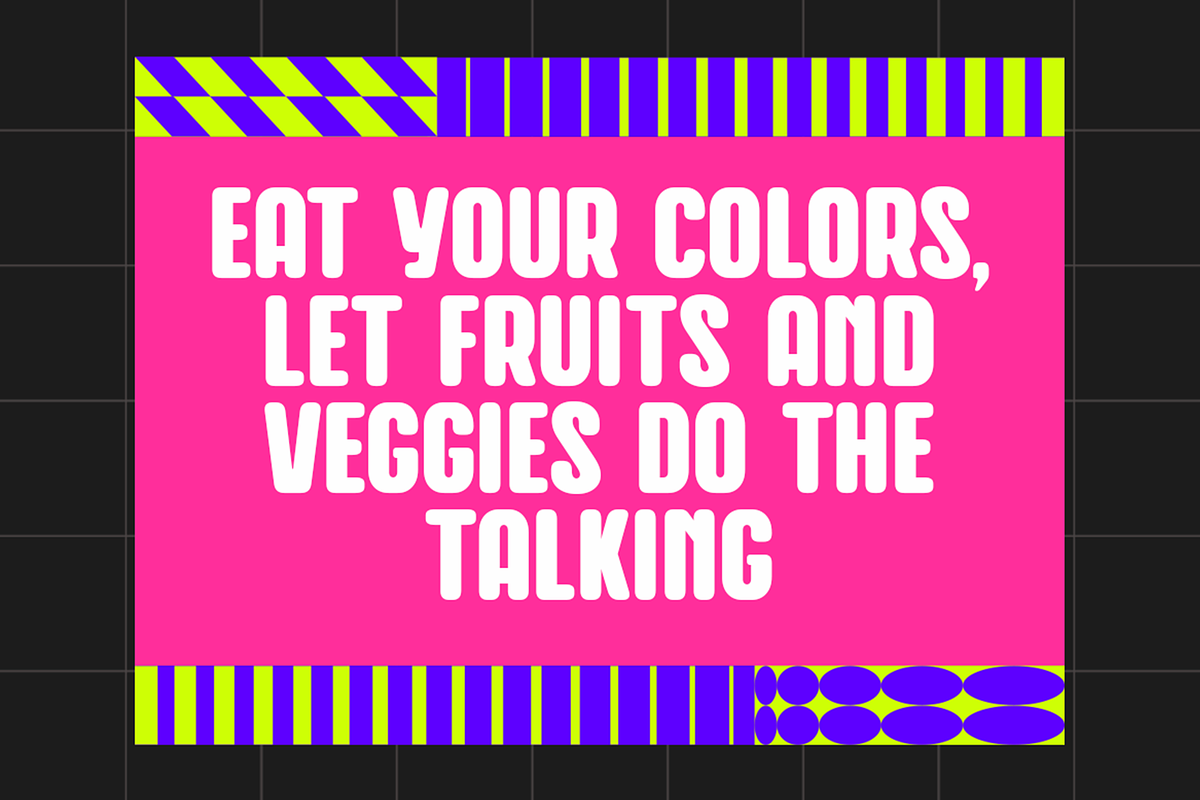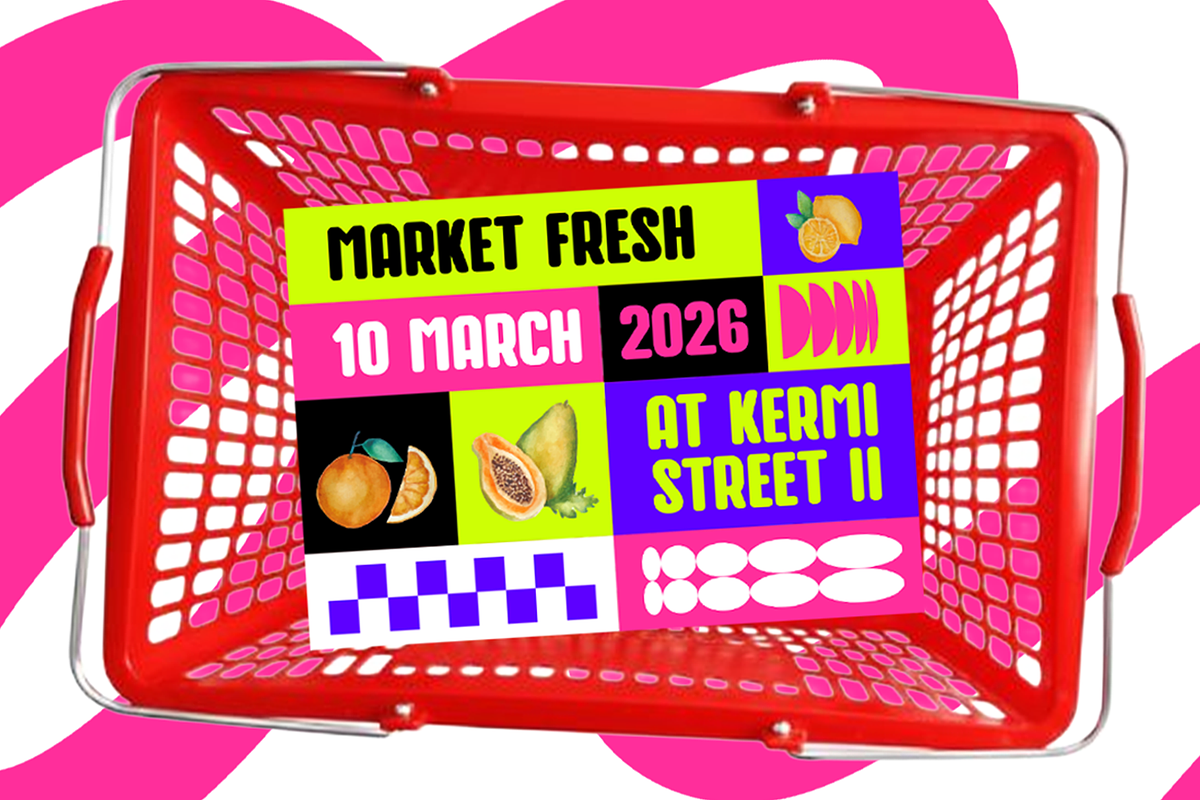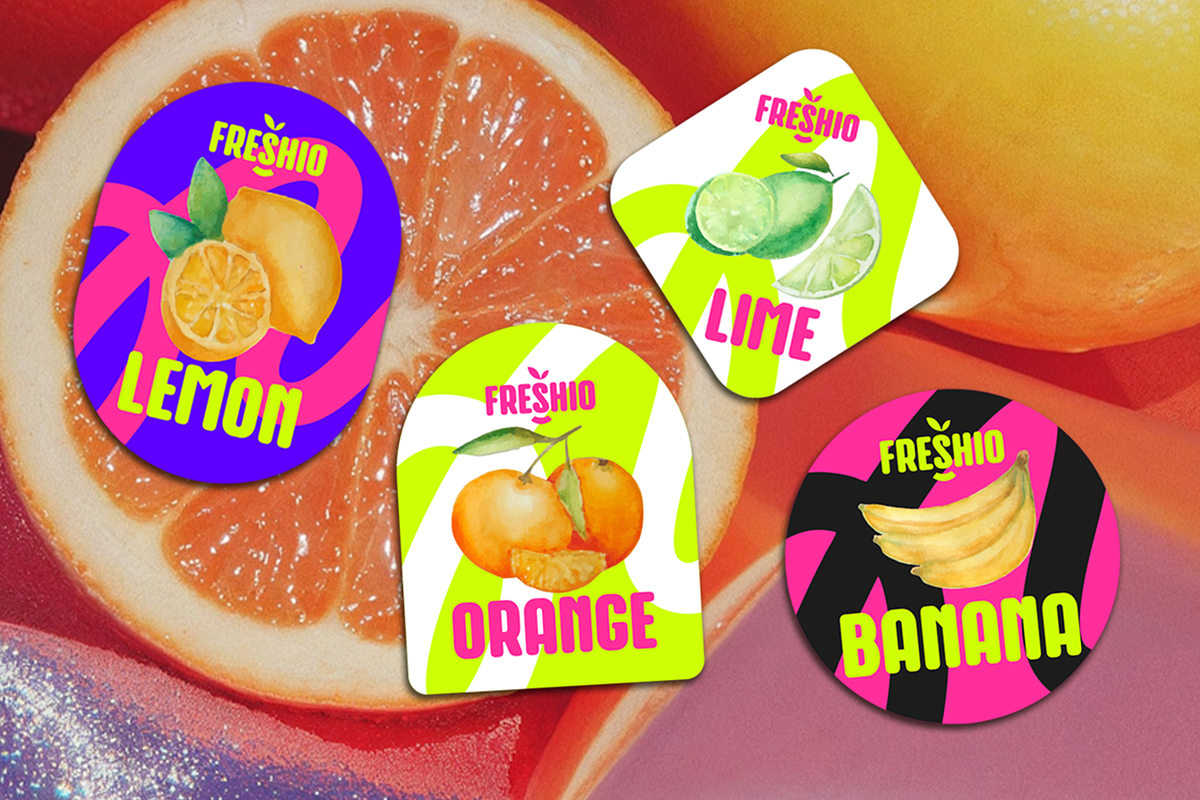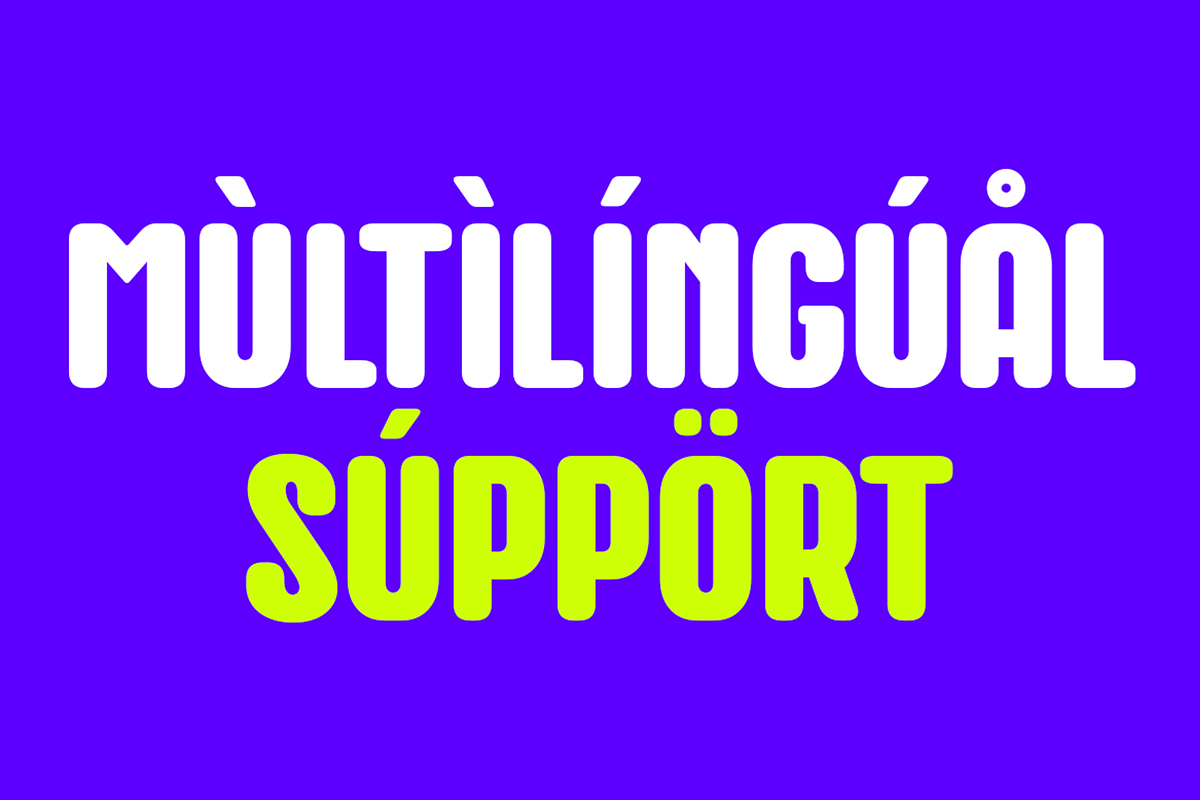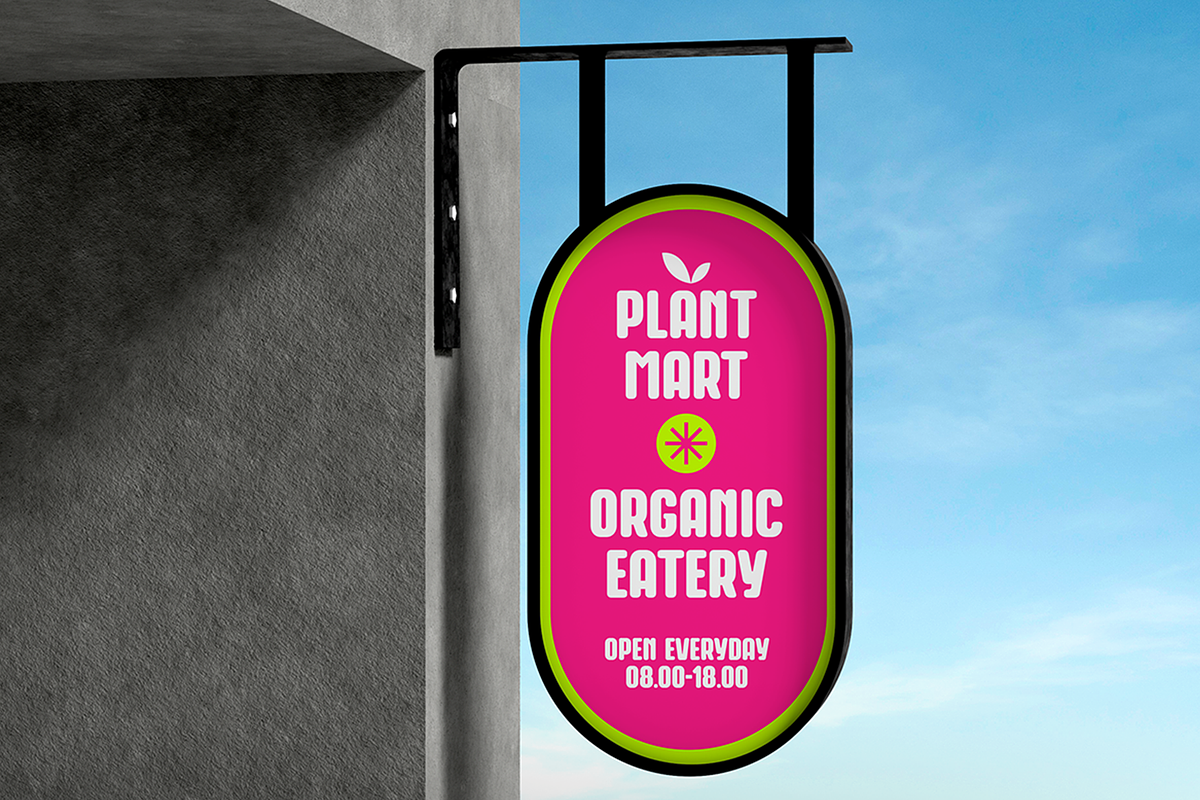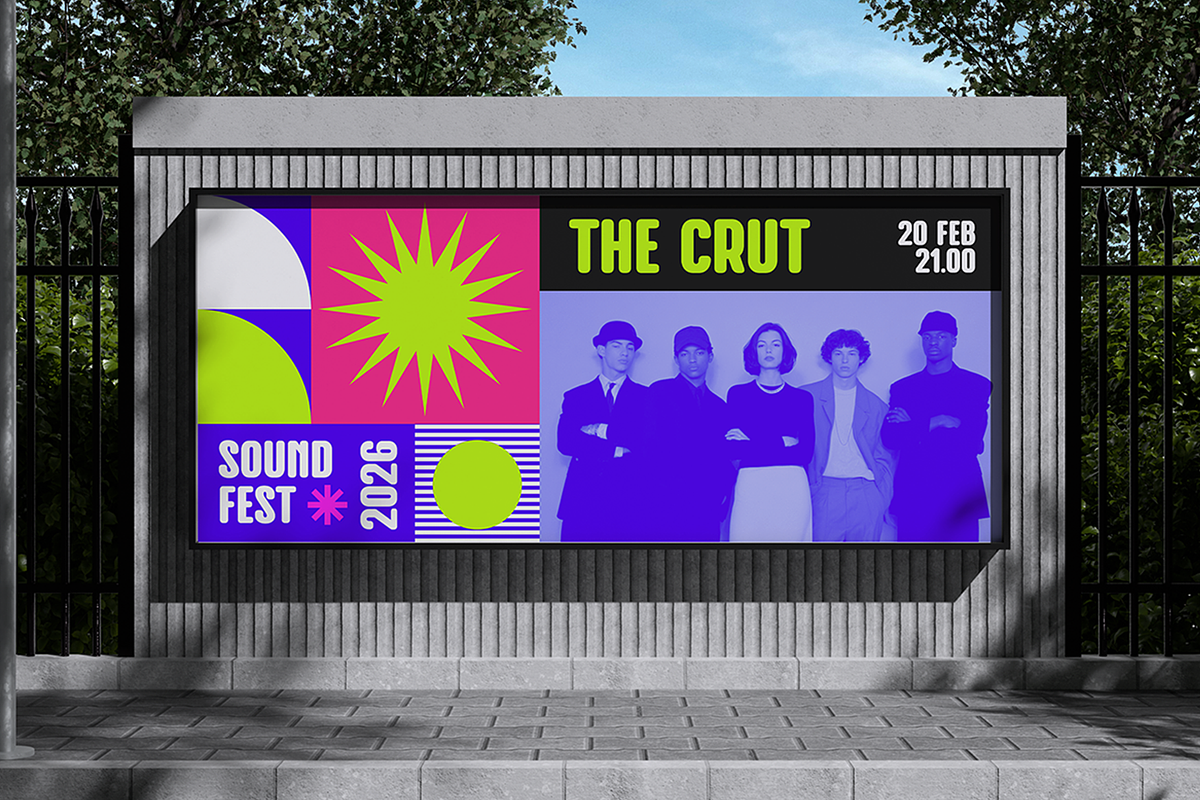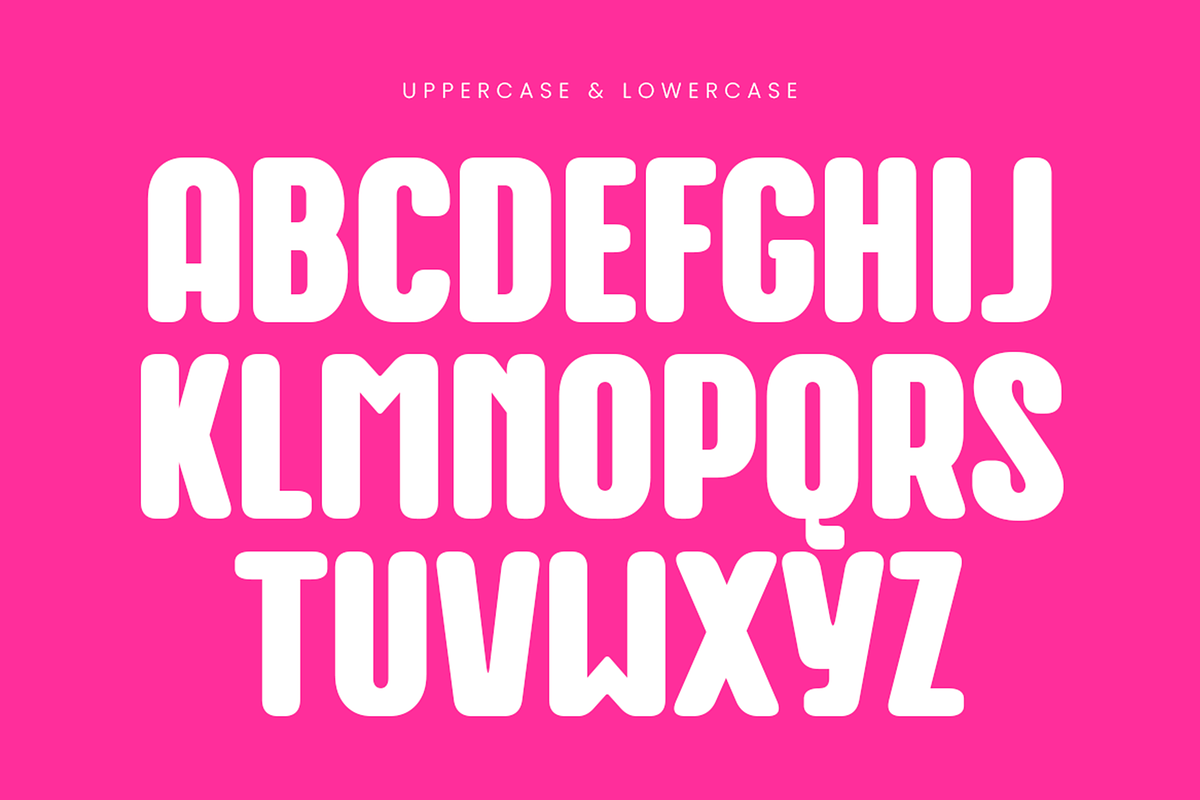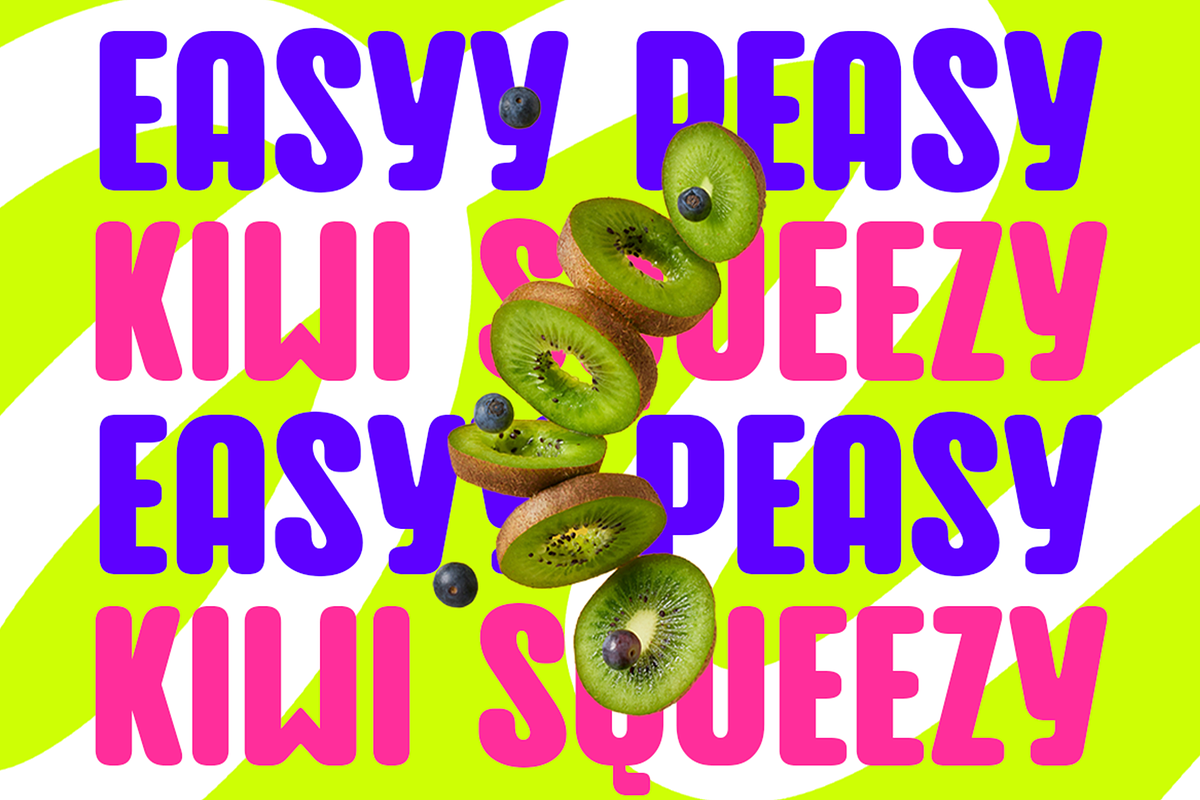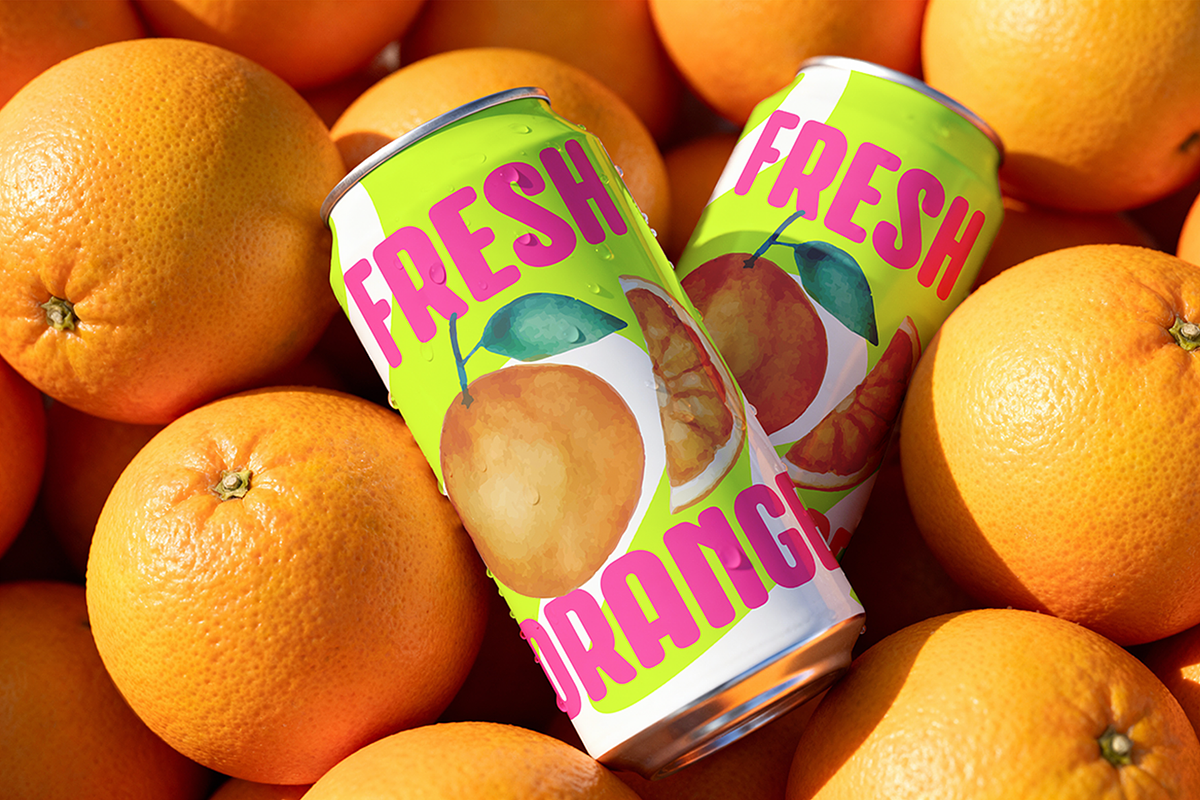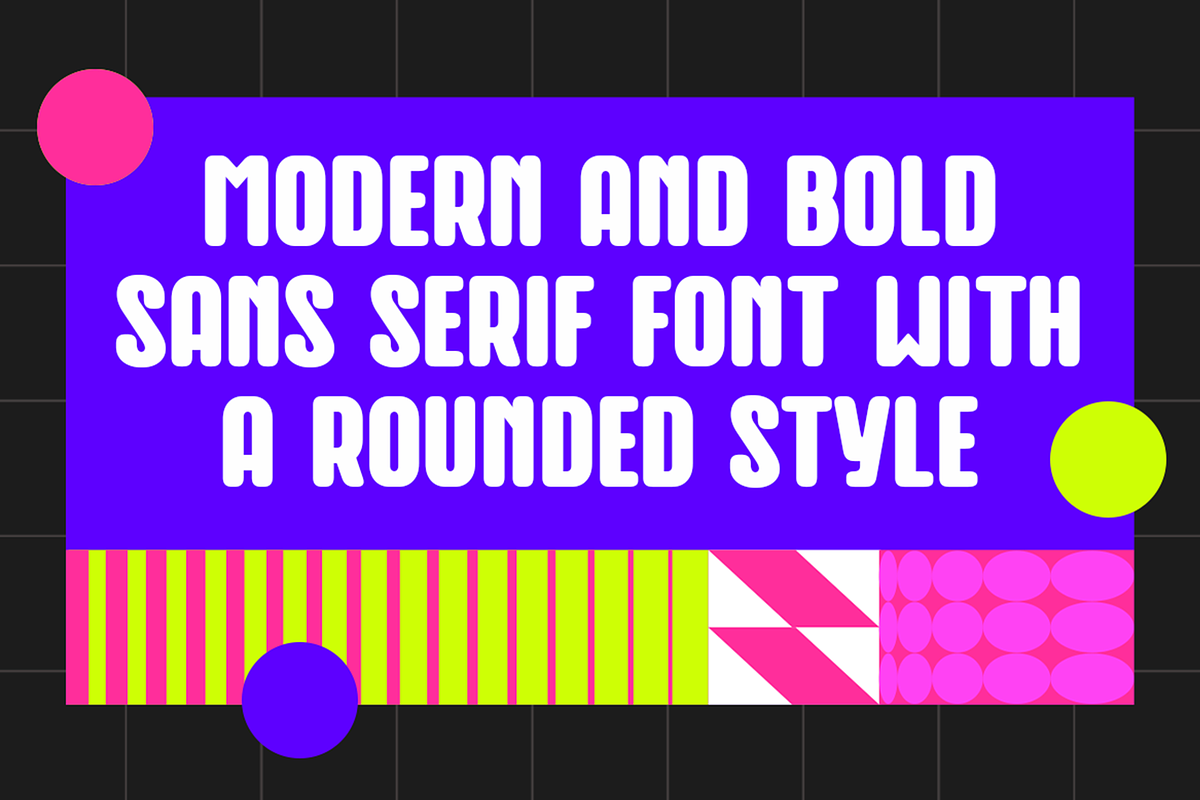
Baune - Condensed Rounded Sans
BAUNE is a bold rounded sans-serif display font that feels fun, friendly, and full of energy. Its soft curves and chunky shapes give it a warm personality while still looking clean and modern. BAUNE is designed to be loud in the best way — it grabs attention instantly, yet stays readable and approachable. The rounded style adds a playful touch that makes every word feel alive, making it perfect for designs that want to feel youthful and confident.
BAUNE works beautifully for branding, logos, packaging, posters, social media graphics, advertising, and promotional visuals that need strong character. It’s especially great for lifestyle brands, food projects, creative campaigns, and bold headlines that want to speak directly to the audience. If you want a typeface that feels modern, expressive, and easy to love, BAUNE brings bold impact with a friendly voice.
- All Caps
- Number, Symbol, & Punctuation